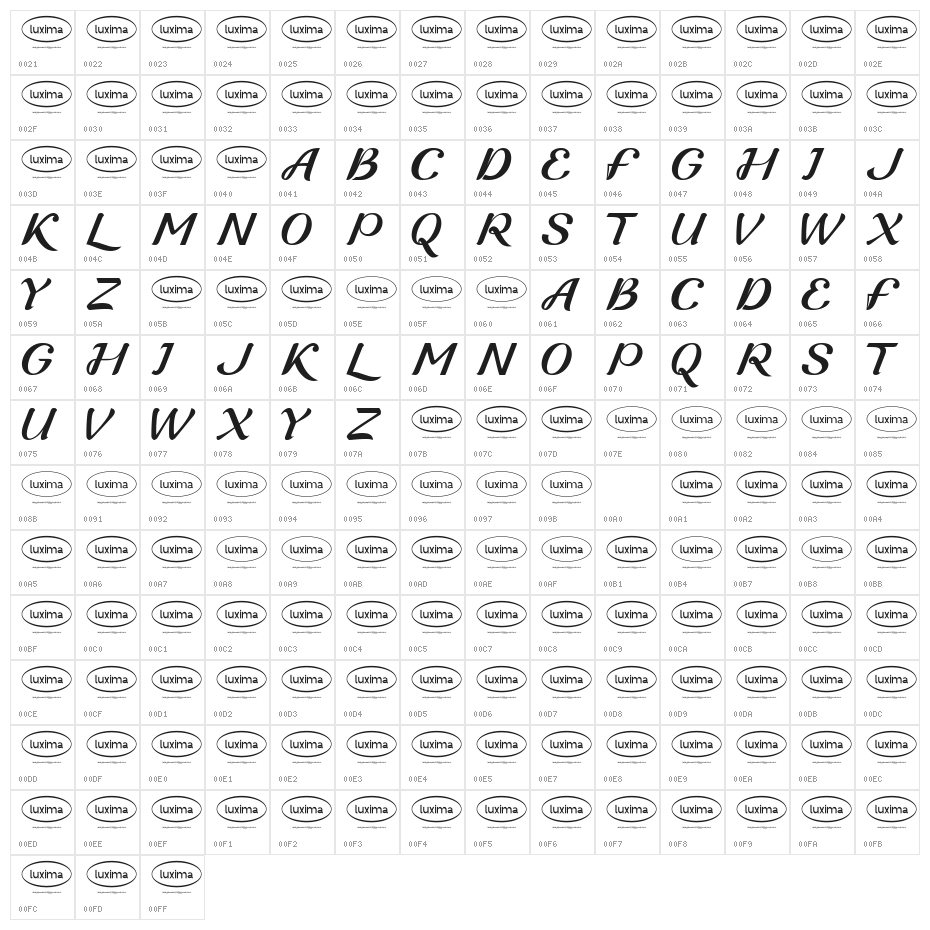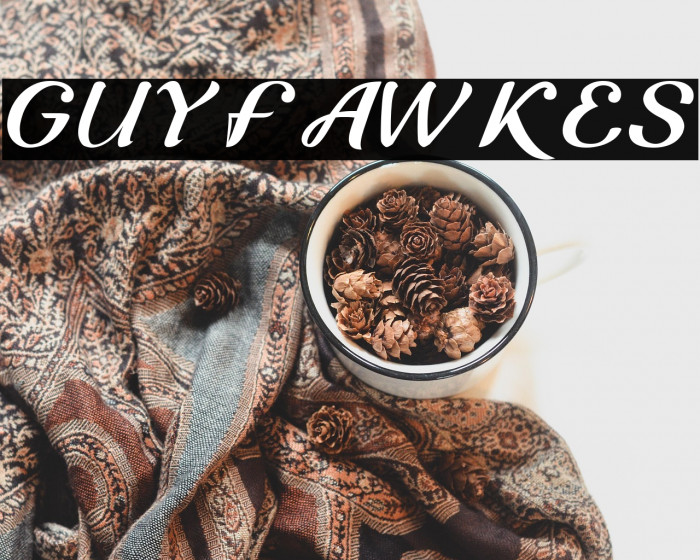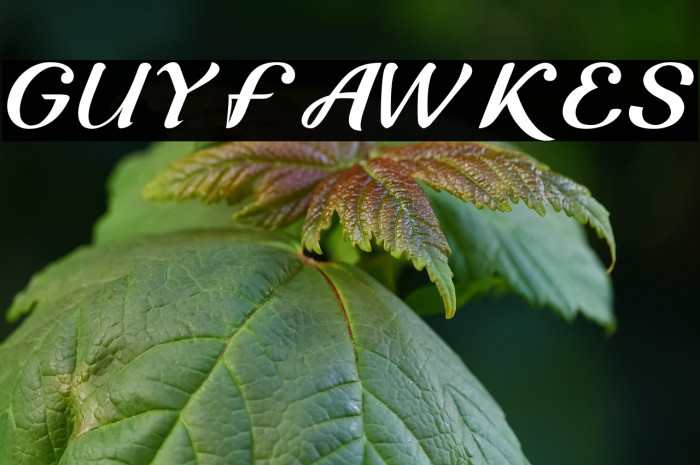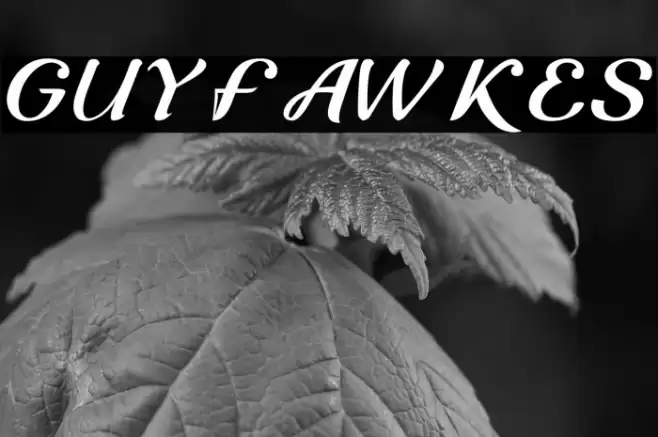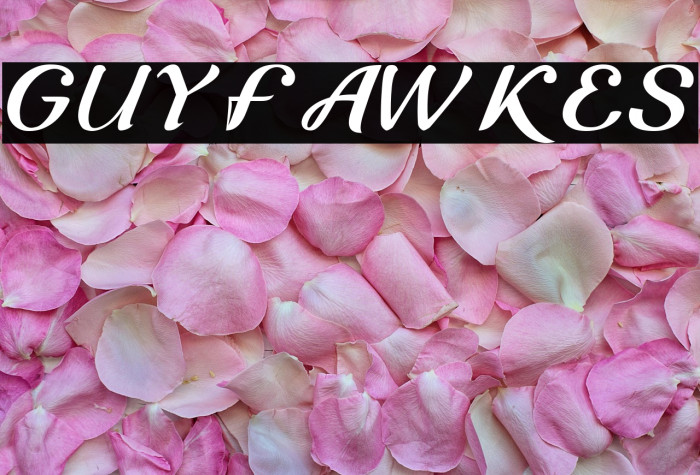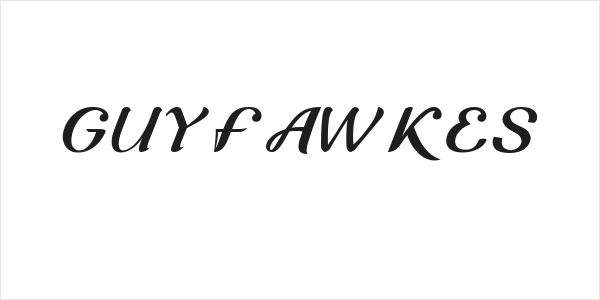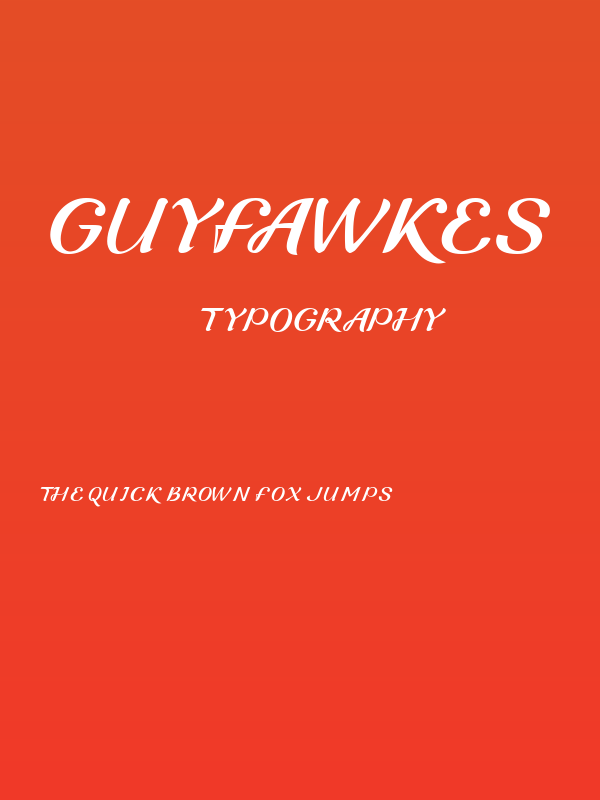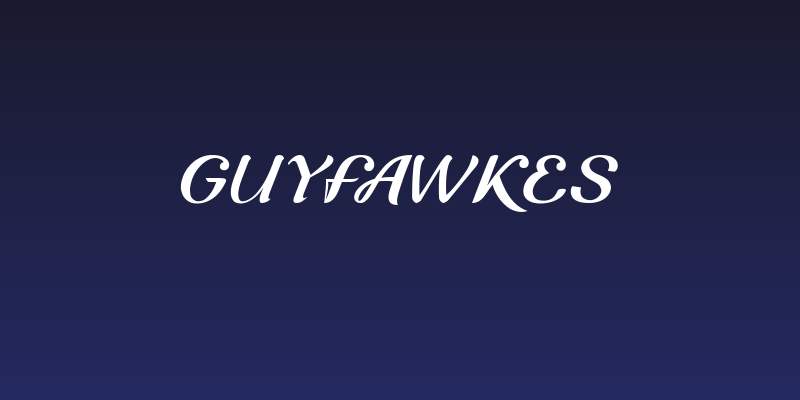
Guyfawkes Font
Guyfawkes Description
This font exudes a classic and elegant script style, characterized by its flowing, cursive letterforms. The uppercase letters are bold and slightly slanted, giving a sense of movement and sophistication. The lowercase letters maintain a consistent style with smooth curves and delicate strokes, enhancing readability while maintaining an artistic flair. The numerals and special characters are designed to match the overall aesthetic, ensuring a cohesive look across all text elements. This font's design is ideal for projects that require a touch of elegance and formality.
| Use Case | Headlines, Invitations, Branding |
| Proposed Projects | Ideal for wedding invitations, formal event programs, elegant branding, and luxury product packaging. |